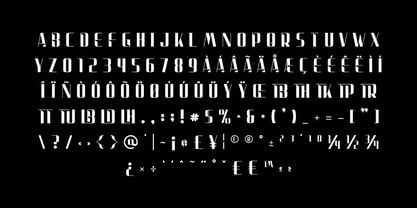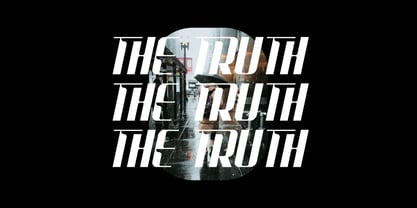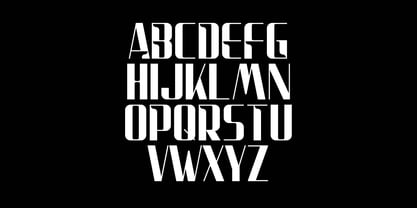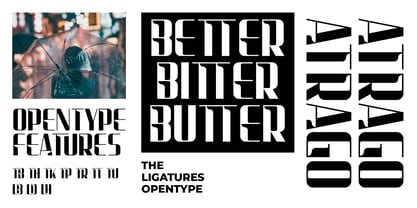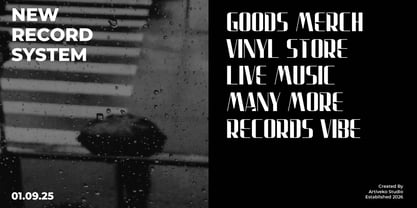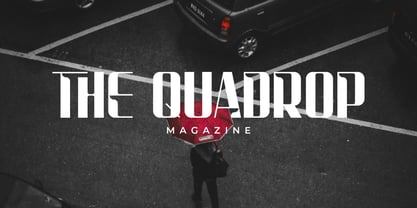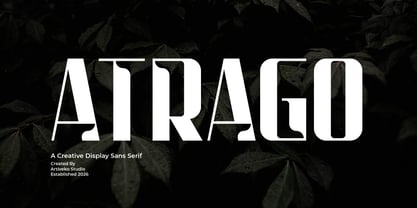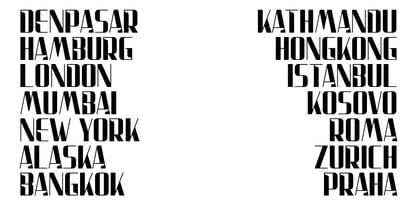
Atrago
The Atrago Font Family was designed by Iwan Alwan and published by Artiveko. Atrago contains 2 styles and family package options. More about this family
Atrago is a striking modern display font designed to deliver powerful visual presence with a clean contemporary aesthetic. With its bold strokes, sharp edges, and confident proportions, Atrago creates an instantly recognizable typographic voice that commands attention. Ideal for posters, headlines, branding, logos, packaging, fashion campaigns, and digital promotions, Atrago works best in large sizes where its modern structure and strong personality can truly shine. Its balance between clarity and expressiveness makes it both readable and visually impactful. Atrago includes uppercase and lowercase characters, numerals, punctuation, multilingual support, and stylistic alternates for creative flexibility. Make a bold modern statement with Atrago — a display font crafted for confident, contemporary, and eye-catching design.
Artiveko is a font design team based in Indonesia, comprised of several talented font designers who commenced their careers in the font design industry in 2020. With a dedicated focus on crafting fonts, the team members bring their collective expertise and passion to every project they undertake. Situated in Indonesia, Artiveko draws inspiration from the vibrant cultural landscape of the region, infusing their creations with unique flavors and aesthetics.The team's font collection encompasses a diverse range of styles, including serif, sans serif, handwritten, and script typefaces. Each typeface is meticulously crafted to meet the demands of modern design while offering versatility and functionality across various applications. Whether it's the classic elegance of serif fonts, the contemporary appeal of sans serif designs, the personal touch of handwritten scripts, or the expressive flourishes of script fonts, Artiveko ensures that every font reflects their dedication to quality and innovation.Artiveko's fonts have garnered recognition and acclaim, with their works being featured on prominent social media platforms like Creative Market. Through these platforms, the team has been able to connect with a global audience of designers and typographers, further amplifying their reach and influence in the industry. Their fonts are celebrated for their impeccable craftsmanship, attention to detail, and ability to elevate design projects with style and sophistication.As Artiveko continues to evolve and expand its font collection, the team remains committed to pushing the boundaries of typography and setting new standards of excellence. With a relentless focus on creativity, innovation, and collaboration, Artiveko strives to inspire and empower designers around the world with their distinctive and versatile font designs.